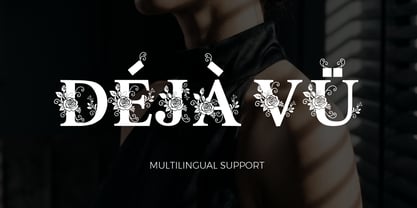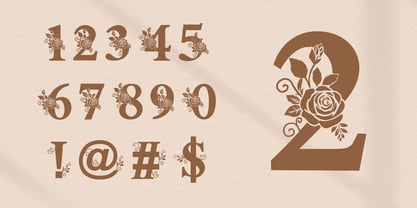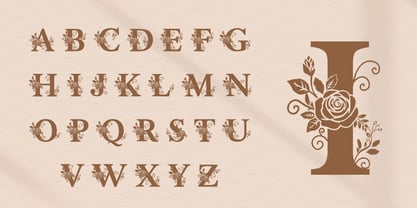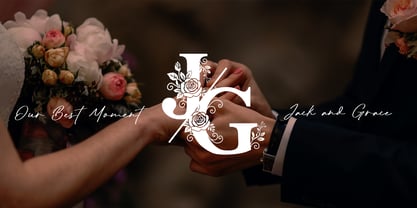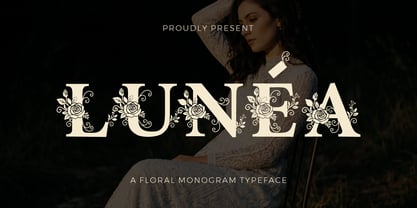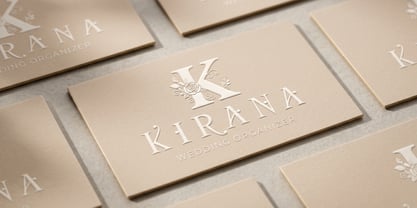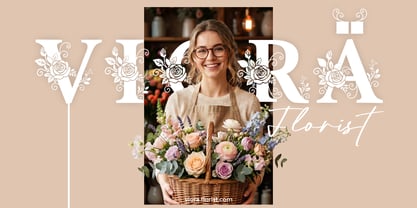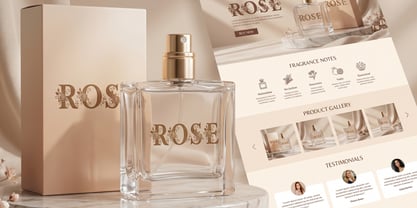
Lunéa
by Sipanji21
The Lunéa Font Family was designed by Sipanji and published by Sipanji21. Lunéa contains 1 styles. More about this family
Lunea Floral Monogram Font sets a brand new benchmark in the world of decorative typography through a spectacular, heartwarming design rich in artistic value. This exclusive typeface represents a harmonious marriage between structured, classic serif capital letters and the organic tenderness of rose petals, opening buds, and foliage that wraps effortlessly around the body of each letter. The introduction of Lunea to the market addresses the ambitions of creative professionals, prominent branding agencies, print designers, and luxury manufacturers who desire a powerful, classy, and timeless visual identity for their public releases. The anatomy of each uppercase character is designed individually with absolute precision, ensuring that the relationship between geometric letterforms and organic botanical shapes works in perfect synergy without compromising the font’s primary role as an effective, easily understood communication tool.
As a comprehensive professional typographic system, Lunea offers far more than just captivating capital letters; it provides a complete ecosystem of characters, including beautifully formed numerical digits and thorough punctuation marks. The design consistency across these decorative numbers simplifies complex layout work, such as highlighting memorable dates on bespoke wedding stationery, numbering limited-edition collector items, or styling chapter headers in premium historical fiction or poetry books. The included punctuation marks have undergone subtle aesthetic refinements so that when paired alongside the primary letters, they establish a balanced, rhythmic visual flow that is deeply pleasing to the eye. The inclusion of these comprehensive secondary elements demonstrates that this digital typeface is engineered with a long-term professional vision, catering to creative industries that demand flawless execution in every microscopic detail of their work.
Meeting the challenges of a borderless international market, the embedded multilingual support serves as a definitive advantage that cannot be overlooked. The font's ability to seamlessly render various diacritics and special characters for Latin-based languages worldwide guarantees that your brand messaging or promotional content will be delivered with perfect linguistic accuracy across regions, from Western and Eastern Europe to North and Latin America. This expansive linguistic versatility frees designers from technical constraints, unlocking boundless creativity when engineering global advertising campaigns, elite fashion magazine layouts, international cosmetic packaging, boutique hotel identities, or monogram logos for high-society jewelry brands targeting major style capitals around the world.
The visual energy emanating from every corner of these rose-infused letters evokes a magical atmosphere of luxury, reminiscent of classic classical gardens within grand European estates, yet packaged in a clean, modern digital form that is remarkably easy to apply. Whether used as the centerpiece for a brand logo, editorial headlines, gallery exhibition wall text, romantic garden wedding signage, or graphic prints on luxury apparel, Lunea consistently commands attention and leaves an impression of profound dignity and poise. Its seamless operation across popular design programs ensures your creative workflow remains perfectly smooth, saving valuable time while elevating the quality standards of your design portfolio.
Investing in this luxurious rose typeface is a definitive step toward positioning your work at the vanguard of the creative industry. Lunea is not a mere typing utility; it is the embodiment of botanical artistry combined with cutting-edge digital font engineering, designed to generate a dramatic, inspiring visual impact. It possesses the rare ability to transform ordinary design projects into extraordinary pieces of visual communication that command high value from clients and audiences worldwide. Unlock your greatest creative potential and let the natural elegance of blooming rose petals guide your digital designs toward historic milestones.
Designers: Sipanji
Foundry: Sipanji21